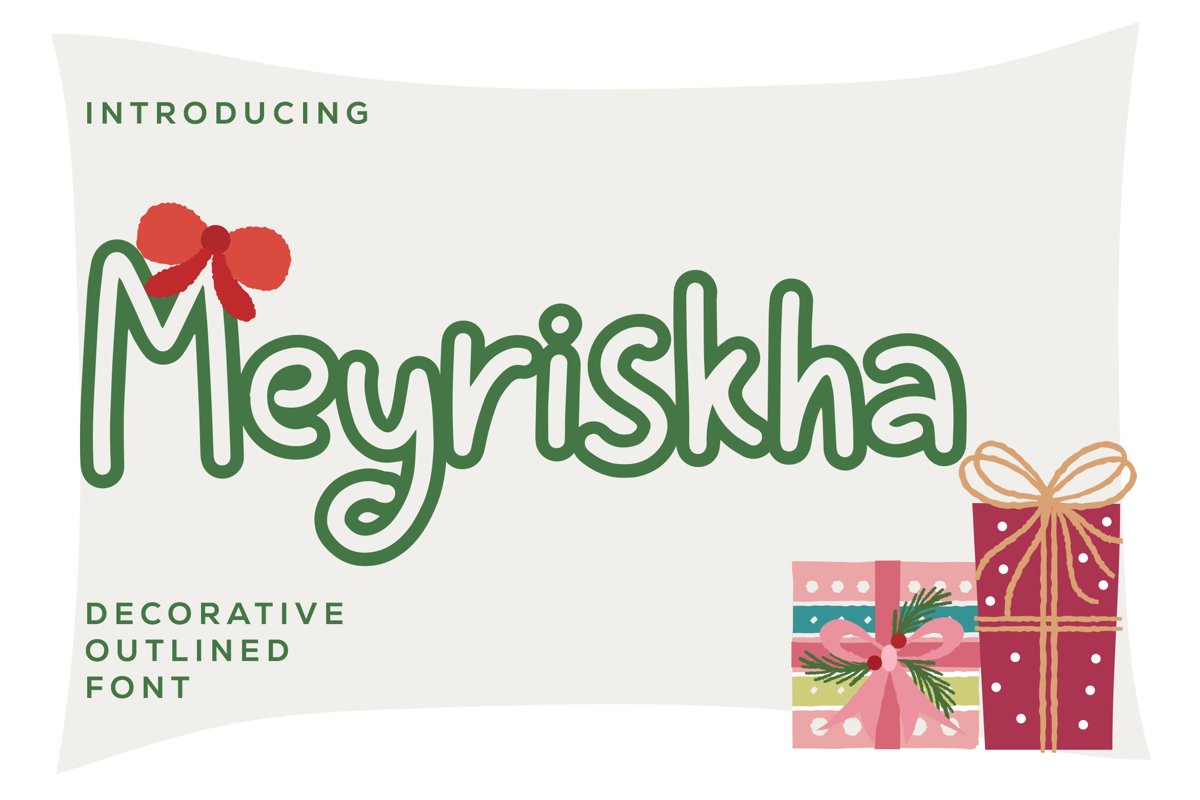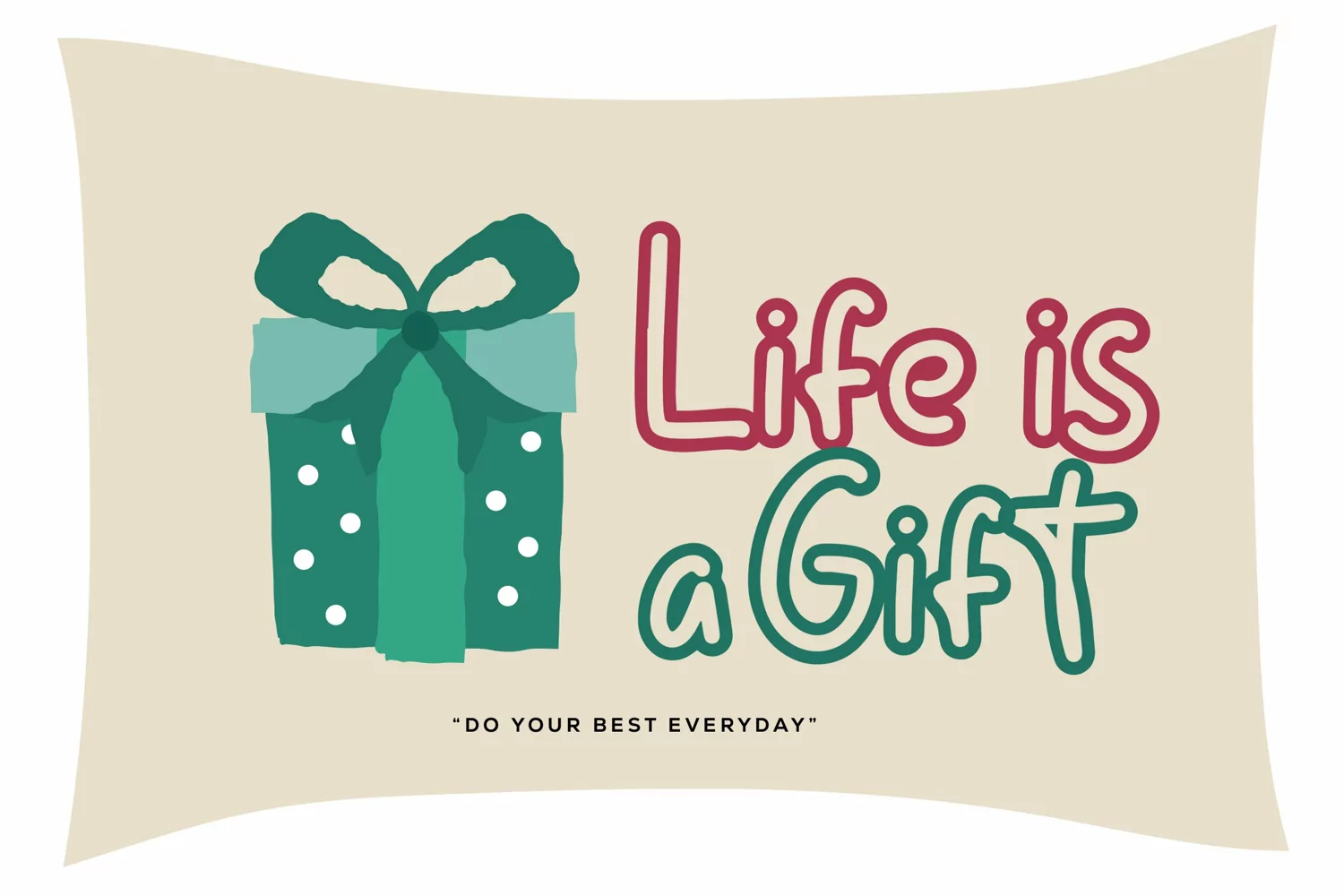
Meyriskha - Decorative Font that contain lowercase, uppercase, symbol, and also support multi language. There’s a lot ligatures in this font. This Font also comes with ligatures, alternates and many more. this font suitable for fashion, branding, catalog and other design what you want.
Meyriskha